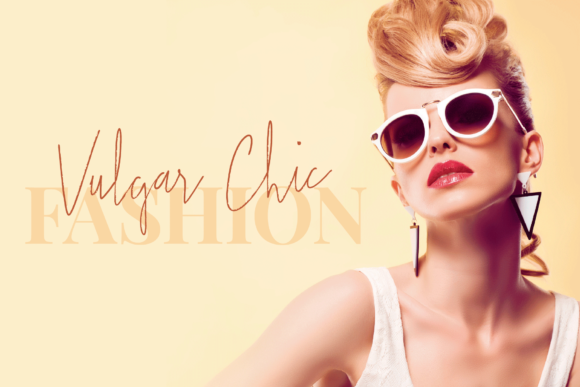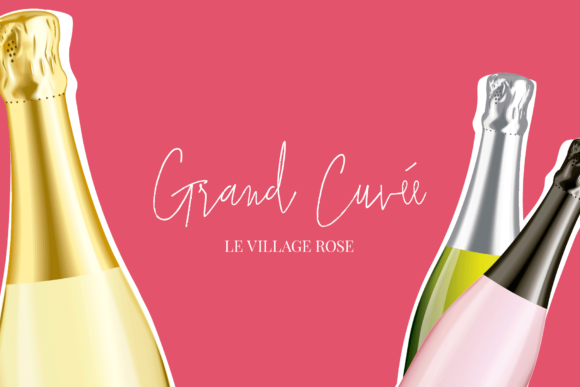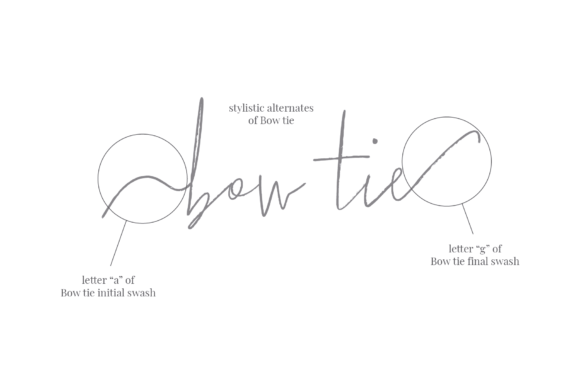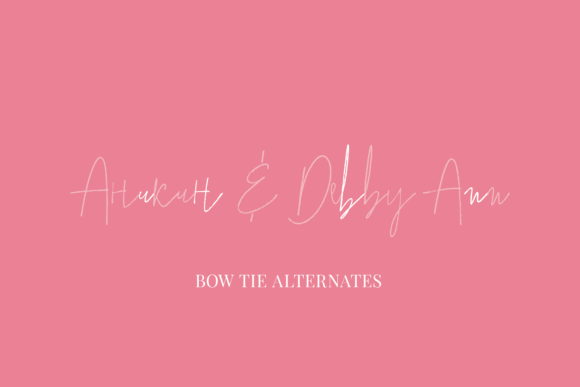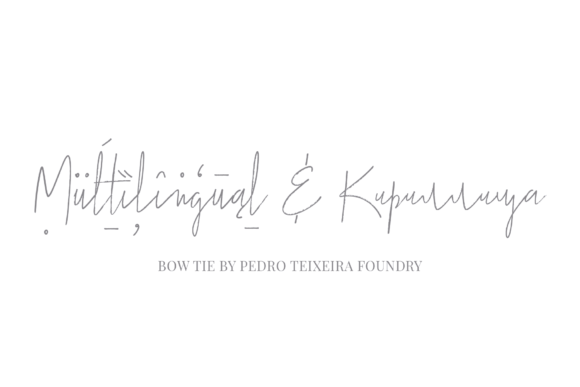
Slipping into Style: Introducing the Bow Tie Font
Have you ever found yourself stuck in a design rut, desperate for a creative spark to elevate your latest project? Maybe you’ve been brainstorming ideas for a wedding invitation, a company logo, or a promotional poster, but nothing seems quite right. Well, let us introduce you to the perfect solution: the Bow Tie Font.
This modern, stylish script font is more than just a pretty face – it’s a versatile tool designed to make your designs shine. With its slight textured feel and organic elegance, the Bow Tie Font is perfect for adding a touch of sophistication to your work. Whether you’re a seasoned pro or a design newbie, this font is sure to become your go-to for all your display needs.
Bow Tie Font Key Features
• Unique Characteristics: The font’s distinctive bow tie design element adds a touch of elegance and sophistication to any text.
Bow Tie Font Review
Overall, I’d say the Bow Tie font is an interesting addition to any design project. ✨ The unique blend of traditional and modern elements gives it a quirky charm that can be used to add some personality to a design. ✨ The font is well-suited for titles, headings, and any other text where you want to draw attention.
• The font’s eccentric style works particularly well for projects that require a vintage or retro feel.
• It’s great for creating a sense of playfulness and whimsy in designs.
However, there are a few limitations to consider. ⚠️ The font can be quite busy, which may make it difficult to read in certain contexts. ⚠️ Additionally, the font’s irregular shape may not be suitable for longer blocks of text.
Overall, I think the Bow Tie font is a great choice for designers who want to add some visual interest to their projects. While it may not be suitable for every design, it’s definitely a unique and eye-catching option that can help you stand out.
Tips for Getting the Most Out of Bow Tie Font
Use Bow Tie Font to add a touch of elegance and sophistication to your designs.
Experiment with different font sizes and colors to create a unique look.
Combine Bow Tie Font with other fonts to create interesting font combinations.
Bow Tie Font is perfect for:
Formal event invitations
Luxury brand logos and branding
High-end product packaging and labels
Alternatives to Bow Tie Font
Great Vibes is a modern, handwritten font that adds a touch of elegance and sophistication to designs. It’s ideal for creating invitations, posters, and other promotional materials where a unique, personal touch is desired.
Compared to Bow Tie Font, Great Vibes has a more refined and polished appearance, making it suitable for a wider range of applications. While Bow Tie Font has a more casual, laid-back feel, Great Vibes is more versatile and can be used in both formal and informal contexts.
Pacifico is a beautiful, cursive font that exudes a sense of warmth and friendliness. It’s perfect for designs that require a touch of whimsy and playfulness, such as children’s books, greeting cards, and social media graphics.
Compared to Bow Tie Font, Pacifico has a more flowing and organic appearance, making it ideal for designs that need to convey a sense of movement and energy. While Bow Tie Font has a more static, two-dimensional feel, Pacifico is more dynamic and engaging.
Carolyna Pro is a elegant, script font that adds a touch of luxury and sophistication to designs. It’s ideal for creating high-end branding materials, such as logos, business cards, and letterheads, where a sense of refinement and elegance is desired.